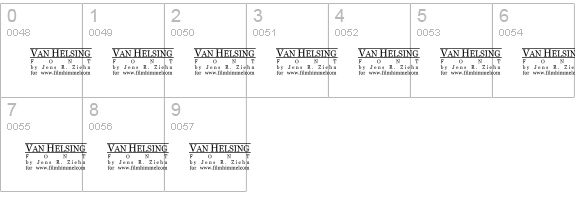
Van Helsing Font Details
Introducing Van Helsing font, a captivating typeface that effortlessly captures the essence of mystery, intrigue, and a touch of gothic allure. Inspired by the iconic vampire hunter himself, this font exudes a sense of darkness and adventure, making it perfect for any project that requires a hint of the supernatural. With its bold and distinctive letterforms, Van Helsing font commands attention and adds a touch of elegance to any design. Whether you're creating posters for a horror film festival, designing book covers for a thrilling vampire novel, or crafting invitations for a gothic themed event, this font will instantly transport your audience into a world of supernatural wonders. The best part? Van Helsing font is freely available to download at FontsMarket.com. This means that you can enhance your designs with this captivating typeface without any cost. Its versatility and unique style make it a valuable addition to any designer's toolkit, allowing you to bring your visions to life with ease. So, why wait? Embrace the darkness and download Van Helsing font today. Unleash your creativity, captivate your audience, and let the power of this font transport your designs to new realms of enchantment.